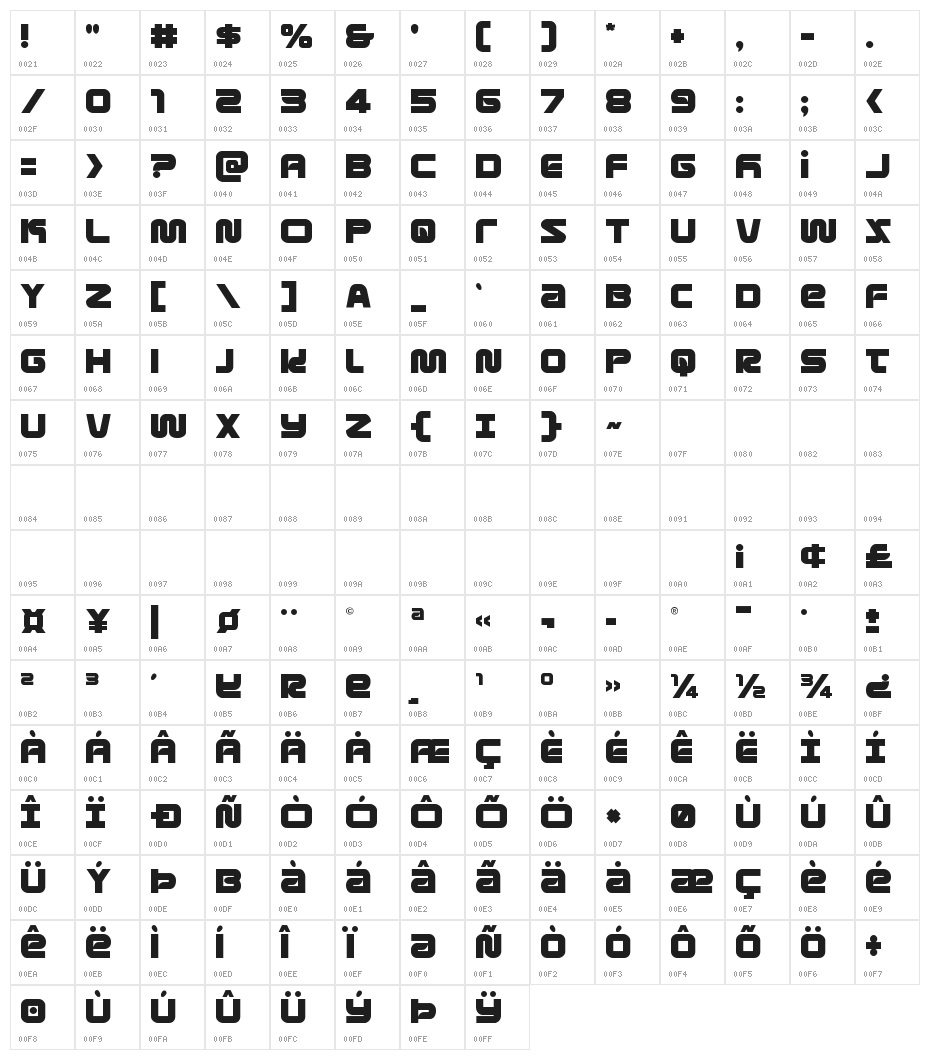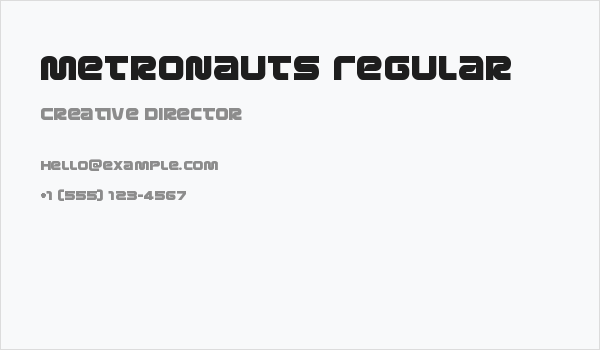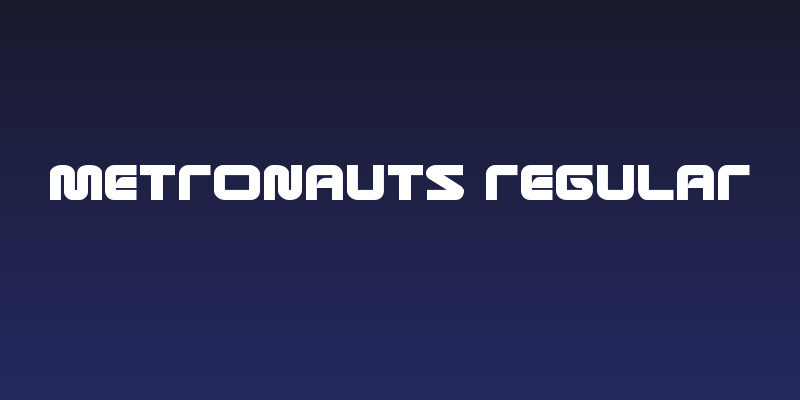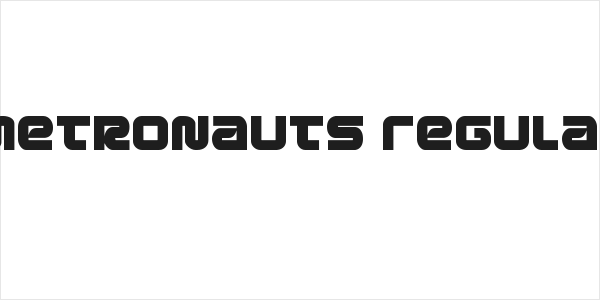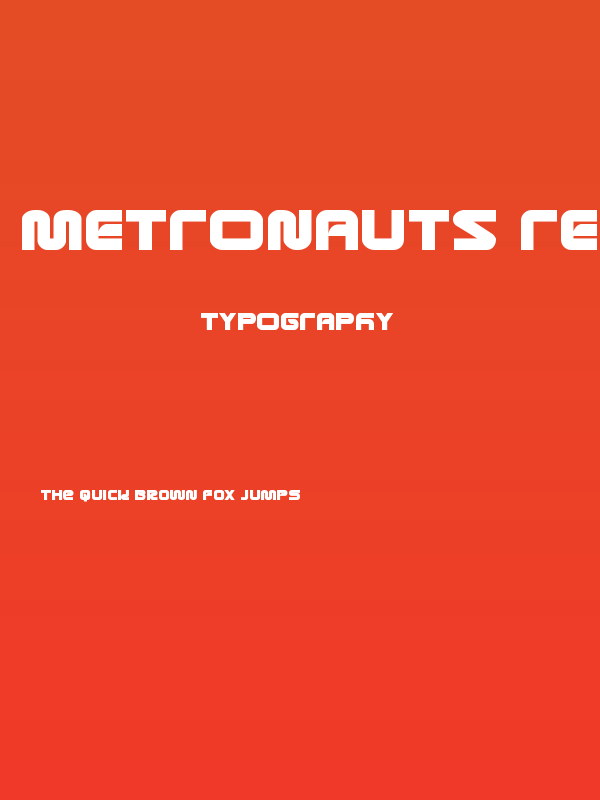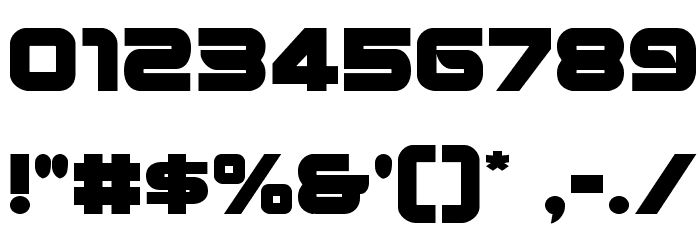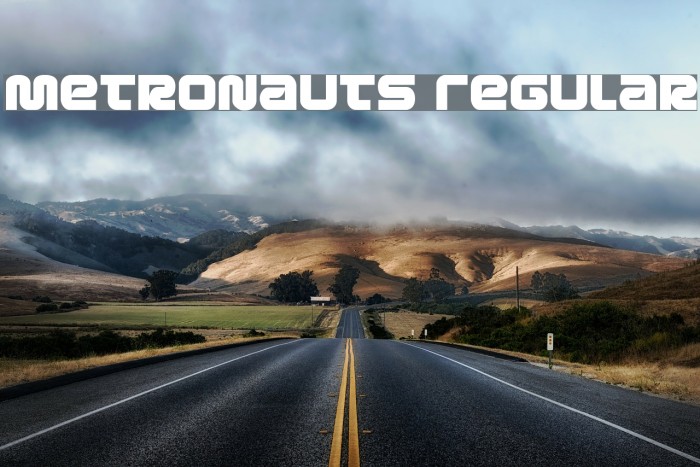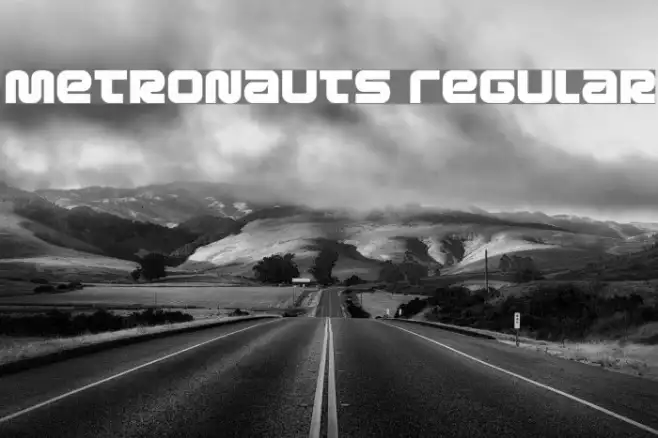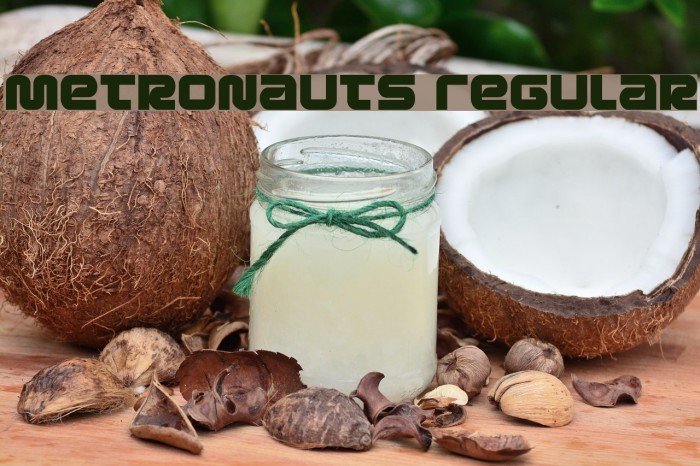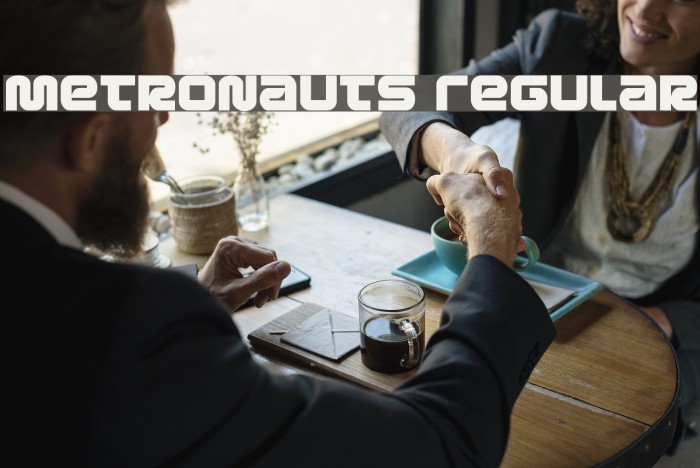
Metronauts Regular Font
Metronauts Regular Description
This font features a bold, futuristic design with a geometric structure. The characters are constructed with thick, uniform strokes, giving it a strong and impactful presence. The rounded edges and consistent line weight contribute to a modern and sleek appearance. The uppercase and lowercase letters maintain a cohesive style, with a slightly condensed form that enhances readability. The numerals and special characters are designed to match the overall aesthetic, making it suitable for digital and print media. Its unique style makes it ideal for projects that require a contemporary and bold look.
| Proposed Projects | Ideal for technology branding, video game titles, sci-fi posters, and digital interfaces. |